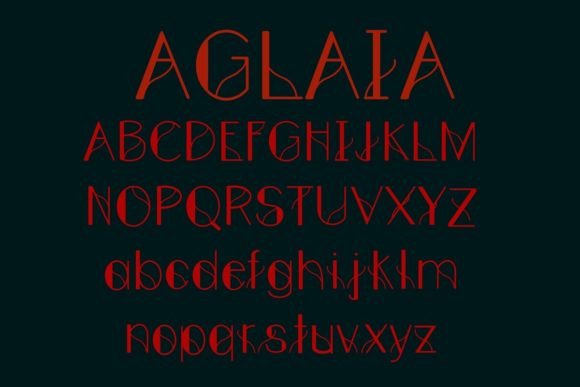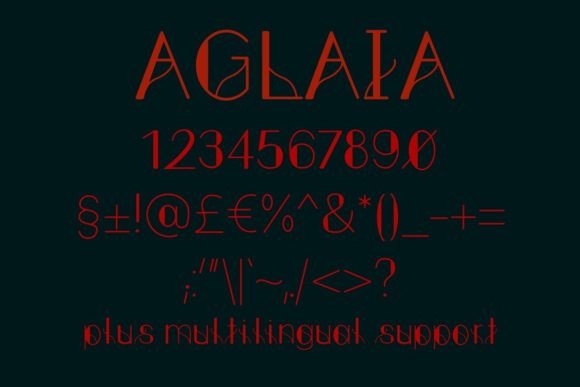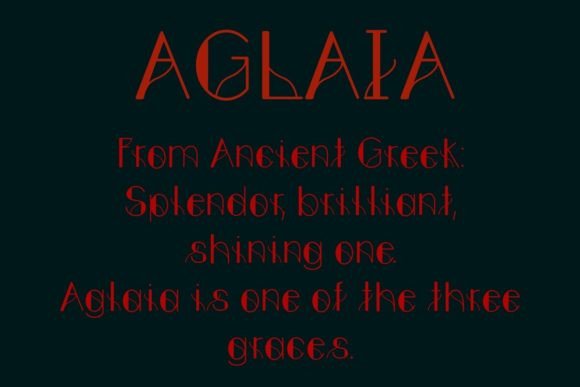
Discover the Elegant and Edgy Aglaia Font: Perfect for Fashion Branding and More
Are you a designer or crafter looking for a unique font that can add a touch of elegance and edge to your projects? Look no further than the Aglaia Font. This stunning font features a fractured look that sets it apart from more traditional fonts, making it perfect for fashion branding, music labels, stylish invitations, and logos.
What is Aglaia Font?
Aglaia Font is a distinctive typeface that boasts a fractured, broken look that gives it a unique and stylish edge. Despite its fractured appearance, the font remains highly legible and elegant, making it suitable for a wide range of applications. Whether you’re looking to create a bold and eye-catching logo or a stylish invitation, Aglaia Font is the perfect choice.
Key Features of Aglaia Font
- Unique Fractured Look: The Aglaia Font features a distinctive fractured look that sets it apart from more traditional fonts.
- Elegant and Stylish: Despite its fractured appearance, the font remains highly elegant and stylish, making it perfect for high-end fashion branding and more.
- Highly Legible: The font is designed to be highly legible, even at smaller sizes, making it suitable for a wide range of applications.
- Edgy and Modern: The Aglaia Font has a distinctly edgy and modern feel, making it perfect for music labels, stylish invitations, and logos.
Perfect for Fashion Branding
Fashion branding requires a font that is both elegant and stylish, yet bold and eye-catching. The Aglaia Font fits the bill perfectly, with its unique fractured look and highly legible design. Whether you’re creating a logo, label, or advertisement, the Aglaia Font is sure to make a statement.
Music Labels and Stylish Invitations
The Aglaia Font is also perfect for music labels and stylish invitations. Its edgy and modern feel makes it a great fit for music-related projects, while its elegant and stylish design ensures that it will add a touch of sophistication to any invitation.
Logo Design and More
The Aglaia Font is a versatile typeface that can be used for a wide range of applications, including logo design, branding, advertising, and more. Its unique fractured look and highly legible design make it perfect for creating bold and eye-catching logos that will stand out from the crowd.
Tips for Using Aglaia Font
- Use it sparingly: The Aglaia Font is a bold and eye-catching font, so use it sparingly to avoid overwhelming your design.
- Pair it with a neutral font: Pair the Aglaia Font with a neutral font to create a striking contrast and add visual interest to your design.
- Experiment with different sizes: The Aglaia Font looks great at a variety of sizes, so experiment with different sizes to find the one that works best for your project.
The Aglaia Font is a unique and stylish typeface that is perfect for designers and crafters looking to add a touch of elegance and edge to their projects. With its fractured look, highly legible design, and versatile applications, the Aglaia Font is a great choice for fashion branding, music labels, stylish invitations, logos, and more.